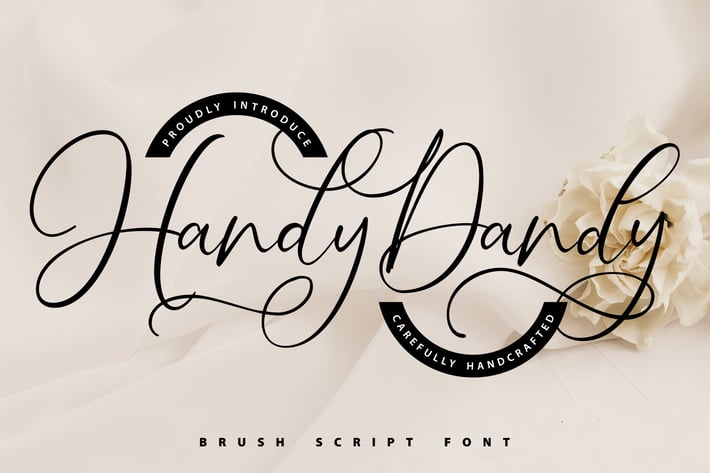
Handy-Dandy | Brush Script Font
Handy-Dandy | Brush Script Font with a calligraphy style, So beautiful on invitation like greeting cards, branding materials, business cards, quotes, posters, and more!